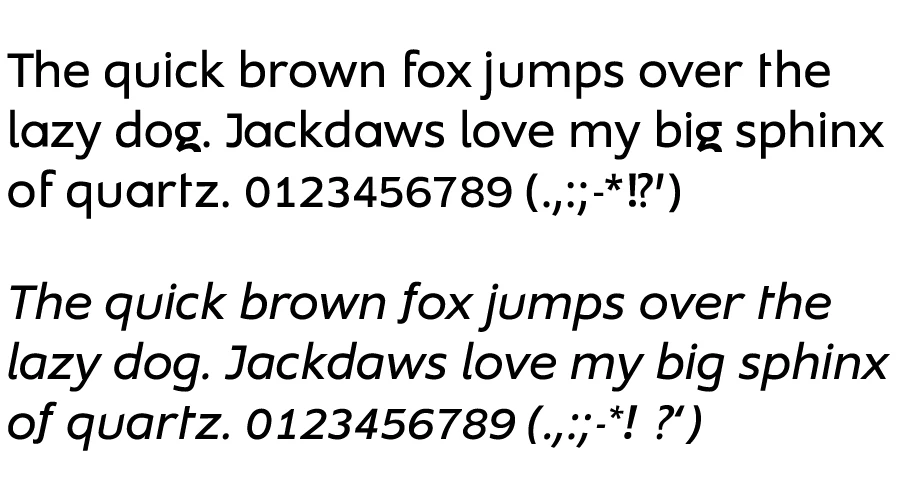
Nanotech LLC is a clean sans-serif font. This font is designed by Afotey Clement Nii Odai. Afotey Clement Nii Odai is a Creative Designer born and raised in Accra, Ghana. Nanotech font published through VType foundry. Nanotech has a strong visual impact. Montserrat and Raleway are mostly similar to Nanotech font.
For its strong visual impact, Nanotech can give your designs a strong field of attraction. So it is perfect for designing purposes. You can create logos, business cards, magazine layouts, web designing, headers, product design, large-scale artwork, and more.
• Nanotech Regular.
• Nanotech Regular Italic.
• Nanotech Bold.
• Nanotech Bold Italic.